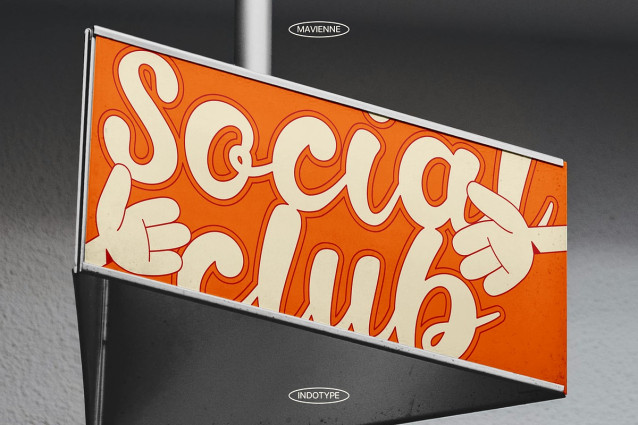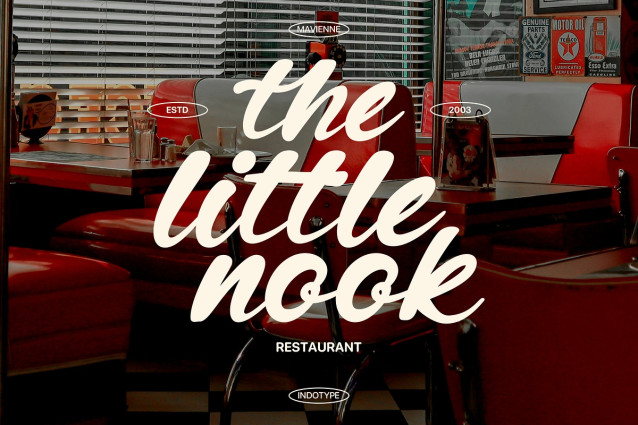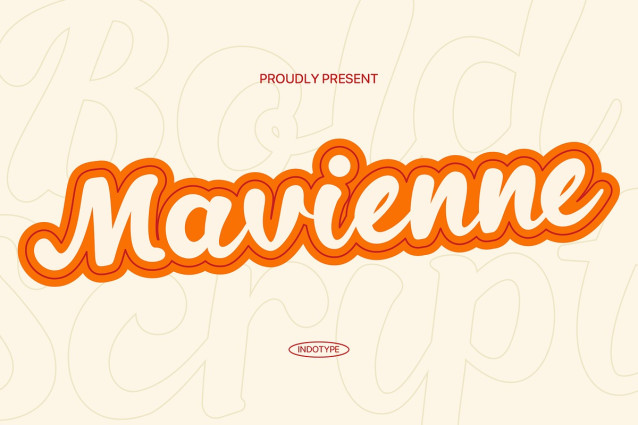
IT Mavienne Font
IT Mavienne Font is a charismatic and bold retro script font that captures the lavish, free-spirited energy of mid-century advertising and vintage signage. With its confident, sweeping strokes, dramatic swashes, and generous letterforms, this typeface exudes personality, nostalgia, and a touch of playful sophistication. It’s designed to command attention, evoking the timeless charm of classic diner menus, retro product labels, and sun-bleached holiday posters. Perfect for projects that need a dose of vintage flair with modern impact, Mavienne brings warmth and character to branding, packaging, and editorial designs. Ideal for craft food labels, boutique branding, event posters, and any design that aims to feel handcrafted, joyful, and unmistakably nostalgic.